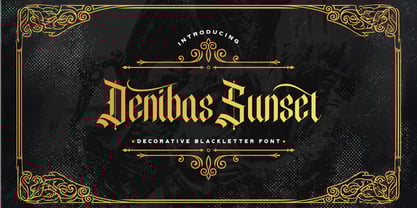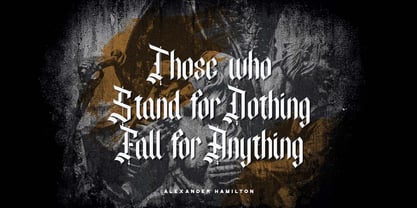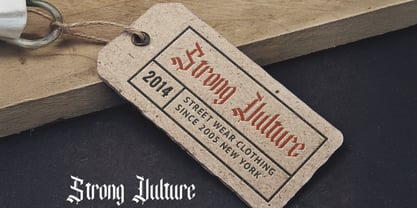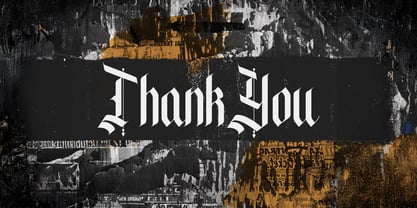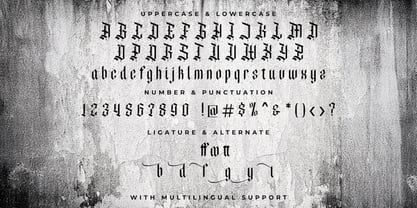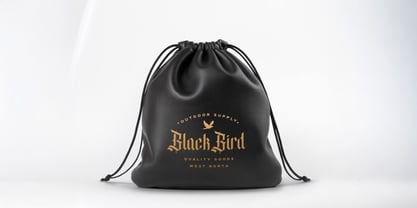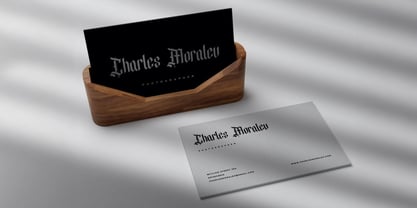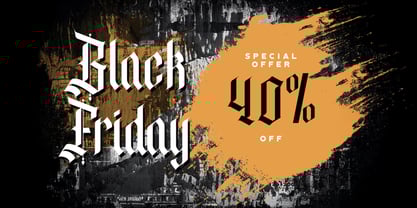
Denibas Sunset
La familia tipográfica Denibas Sunset fue diseñada por Virgiawan Listanto y publicada por Stringlabs Creative Studio. Denibas Sunset contiene 1 estilos.
Denibas Sunset is a powerful blackletter font that blends traditional gothic elements with a modern edge. With its sharp lines, bold strokes, and intricate character design, Denibas Sunset brings a dramatic and edgy vibe to any creative project.